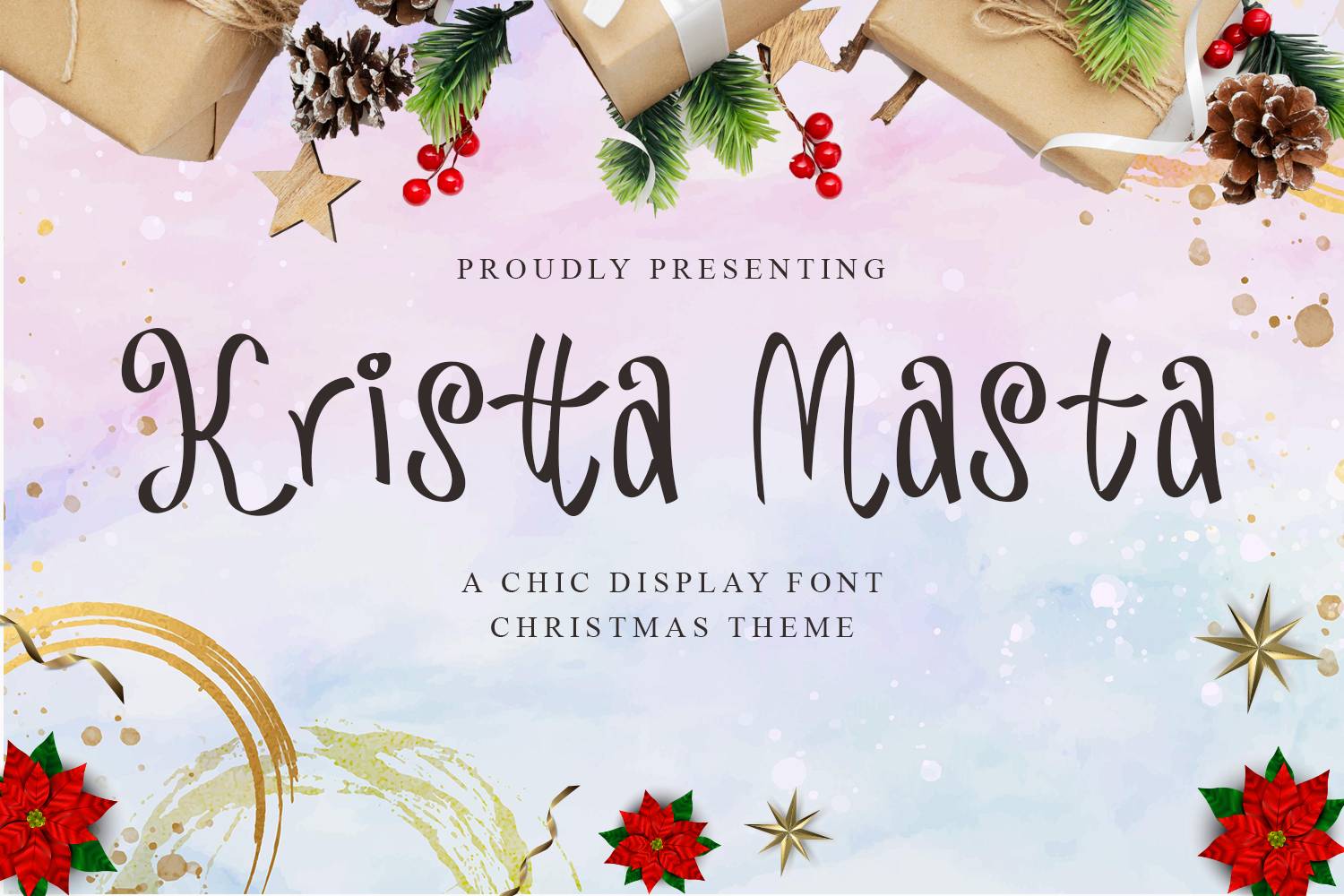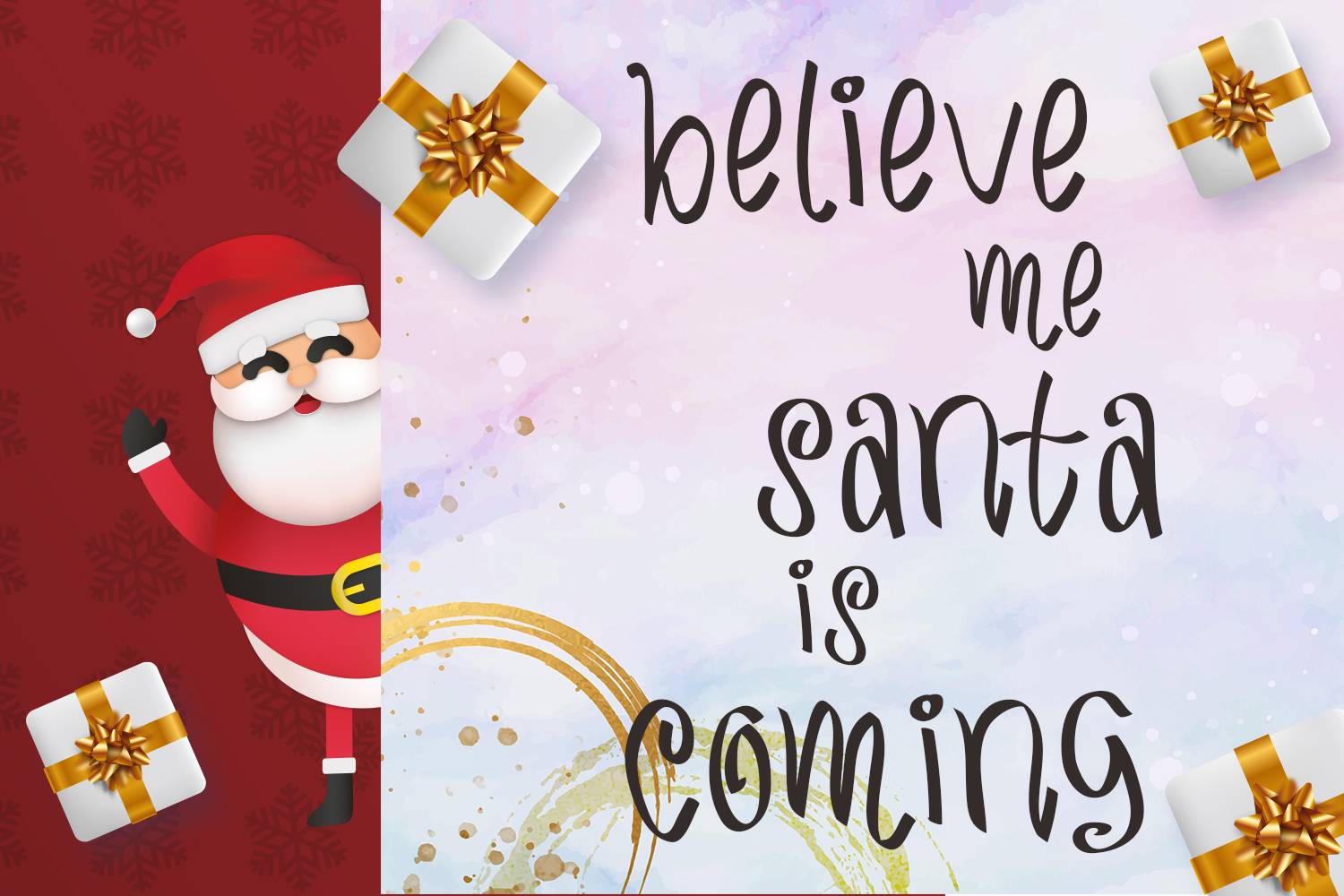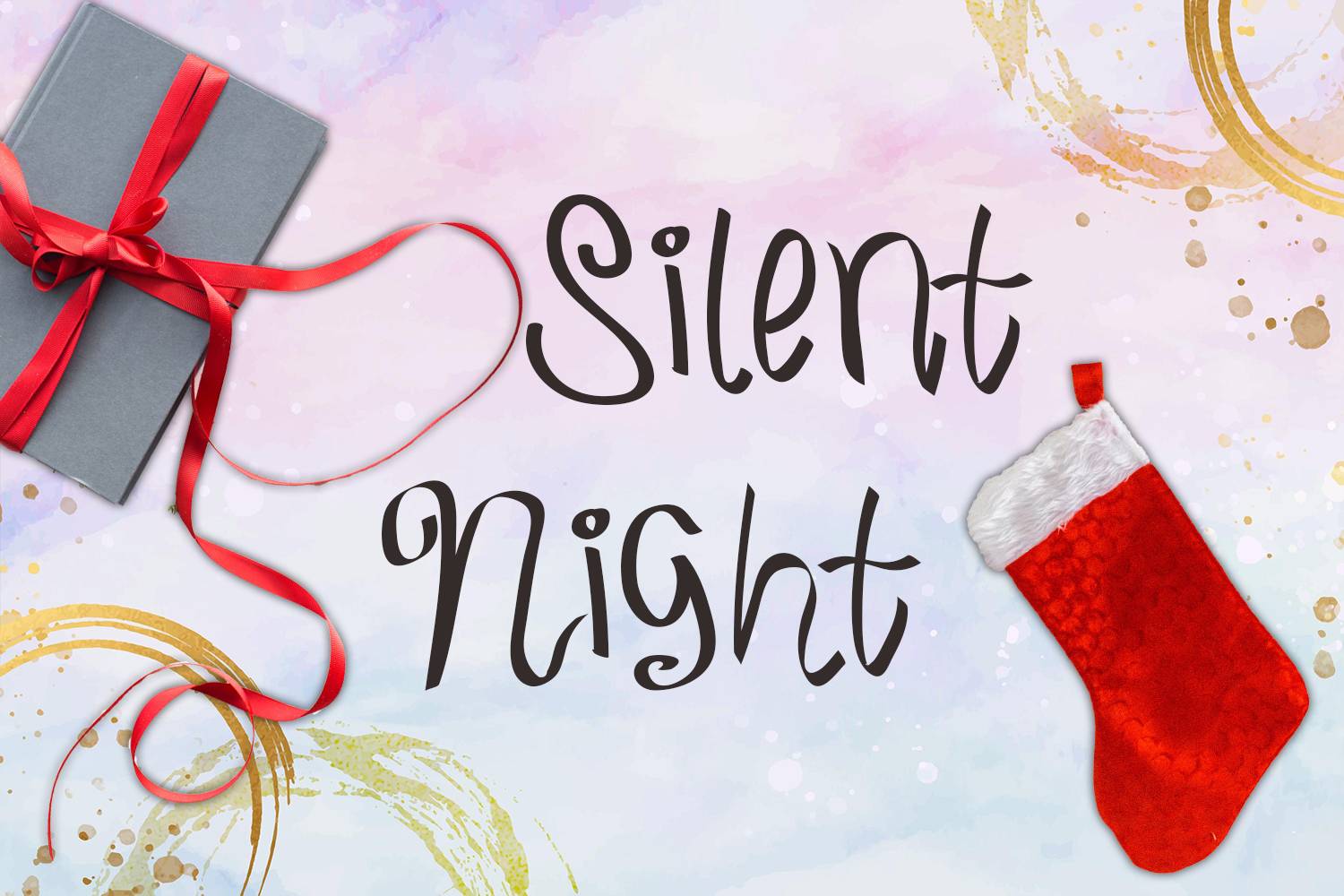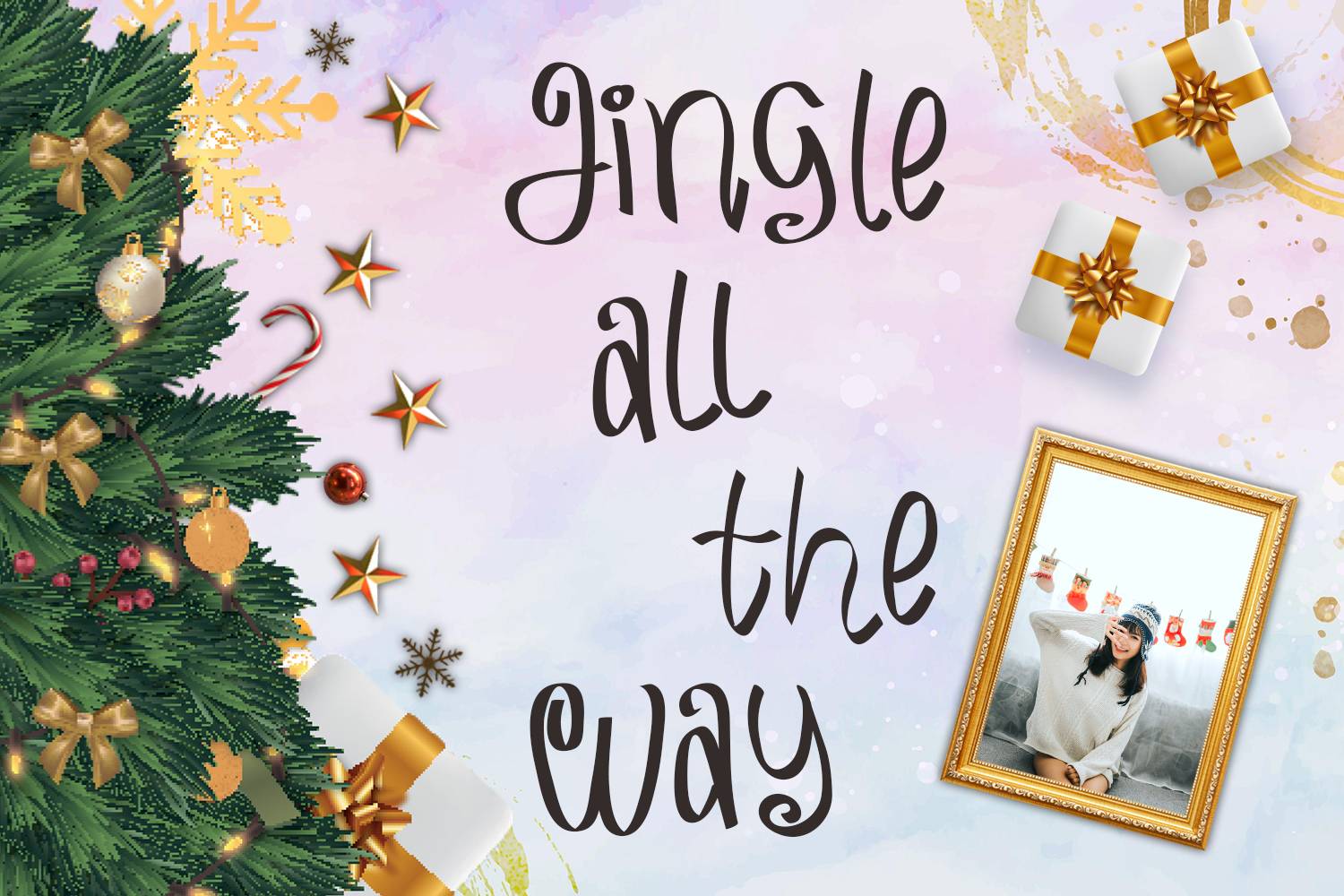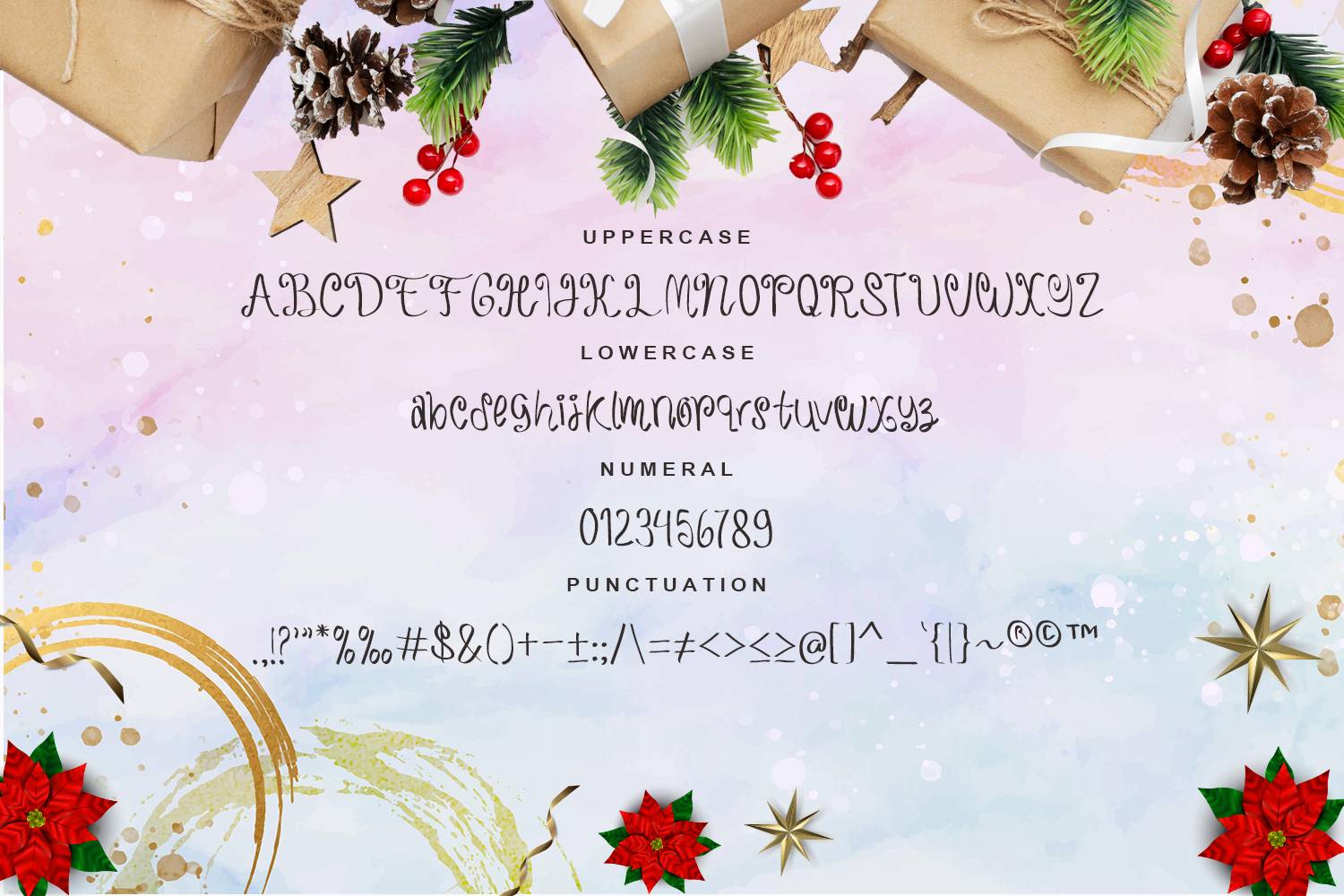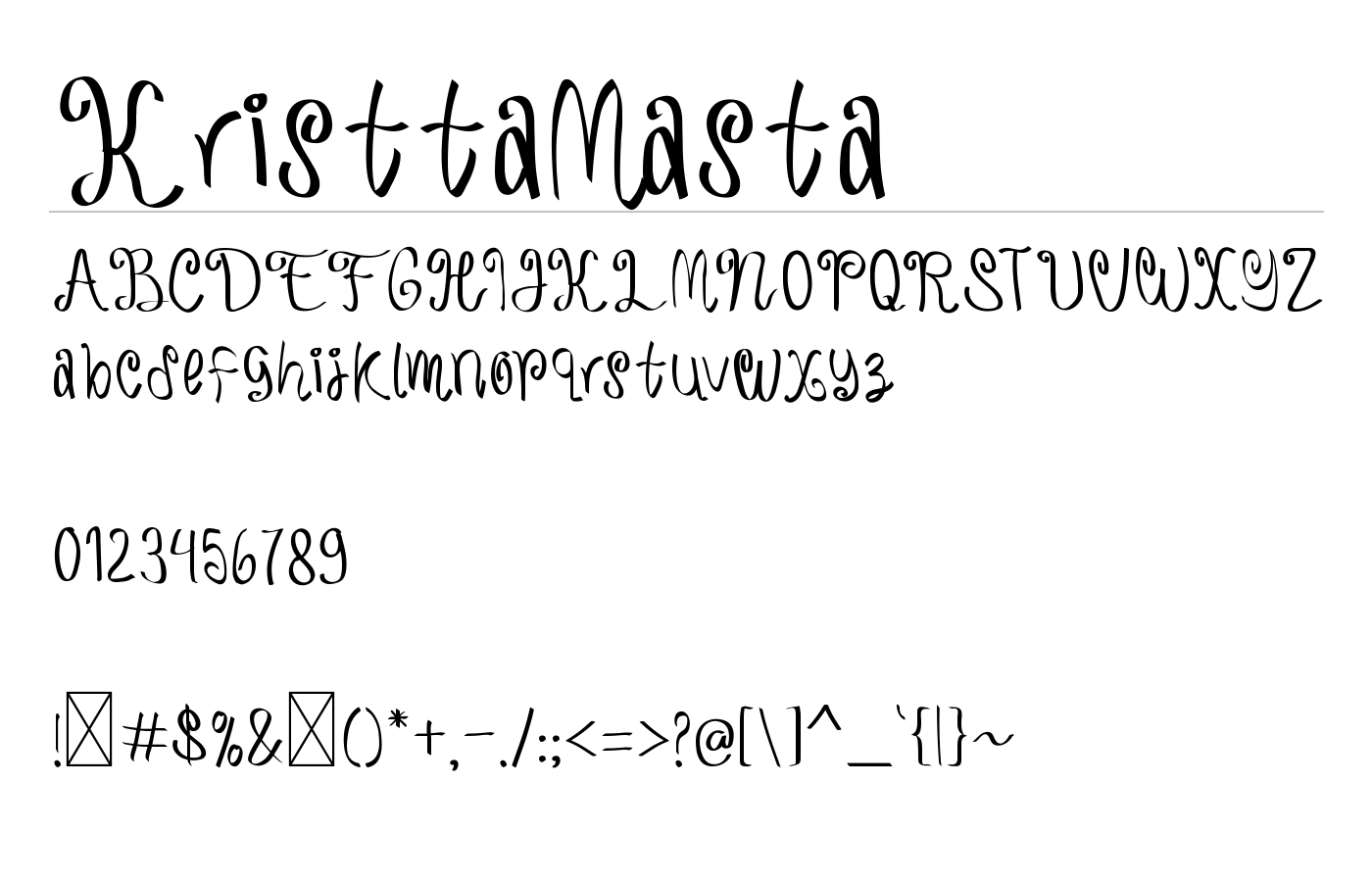
Kristta Masta is a playful and whimsical handwritten font with a tall, narrow structure and delicate stroke weight. Its quirky letterforms feature gentle curves and unique flourishes, giving it a charming, casual personality perfect for creative, lighthearted designs. This font works well for invitations, greeting cards, and branding that seek a friendly, artistic touch.
Kristta Masta Font